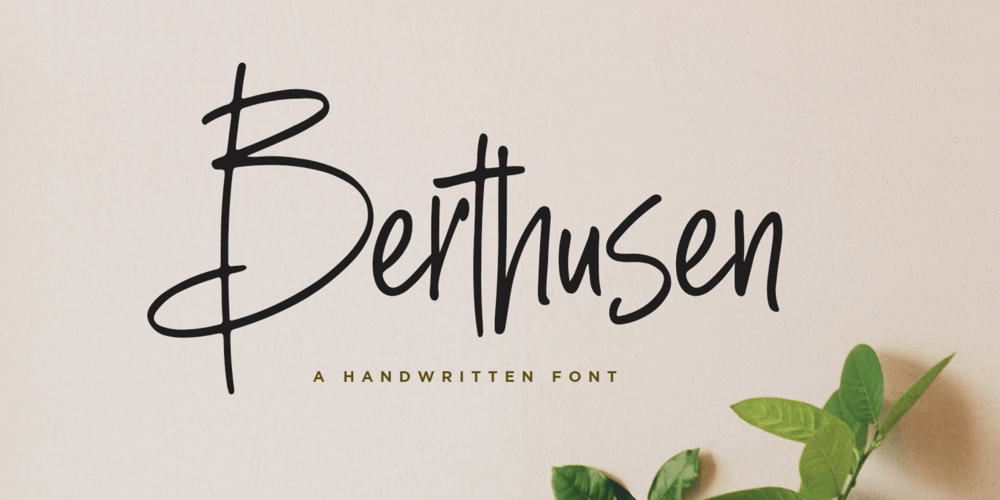
Berthusen
Berthusen font
Berthusen Font Family was designed by Irpan Maulana and published by Sabrcreative. Berthusen contains 1 styles and family package options. Introducing Berthusen, a stunning handwriting signature font that exudes elegance and sophistication. With its graceful curves and fluid strokes, this script font captures the essence of handwritten beauty and adds a touch of refinement to your designs. Whether you’re creating logos, branding materials, invitations, or any creative project, Berthusen will elevate your work with its timeless charm.Berthusen features a perfect balance between uppercase and lowercase letters, offering versatility and creative freedom. The inclusion of numbers and punctuations ensures seamless integration into your designs, allowing you to craft captivating compositions. With multilingual support, this font enables you to express your message effectively across different languages, reaching a broader audience.The PUA encoding of Berthusen allows for easy access to its extensive collection of unique glyphs and ligatures. These special characters and letter combinations add an authentic and handcrafted touch to your typography, enhancing the overall visual appeal of your designs.With its refined script style, Berthusen is perfect for various design projects where a touch of elegance is desired. Its versatility makes it ideal for wedding invitations, stationery, quotes, branding, and much more. Let Berthusen elevate your designs and leave a lasting impression on your audience.